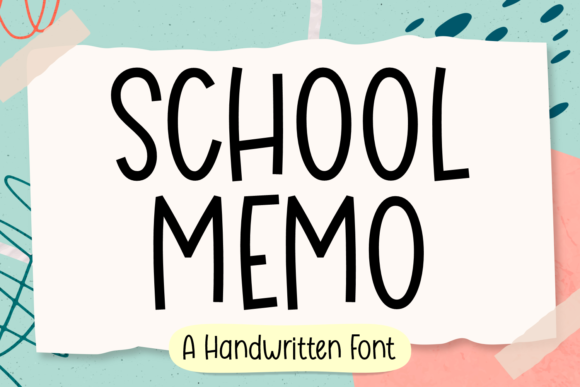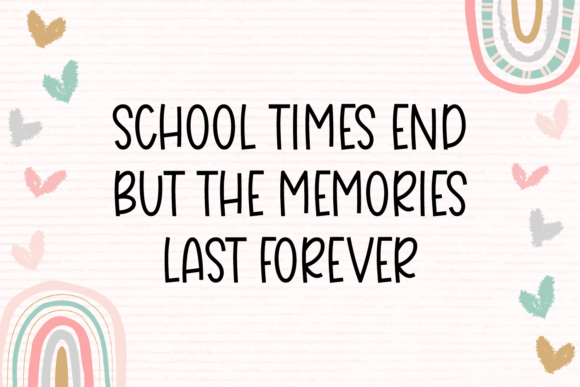
About School Memo Font
Introducing School Memo, a delightful and playful handwritten font designed to bring a touch of cuteness to your creative projects. With its tall and thin character set, School Memo adds a unique charm that is perfect for a variety of applications, especially those aimed at kids. This font is not just a typeface; it’s an opportunity to infuse joy into your designs and make them memorable.
The characteristics of School Memo make it an ideal choice for:
1. **Kids’ Room Designs:** Create a fun and whimsical atmosphere in children’s spaces with this playful font.
2. **Wall Art:** Turn plain walls into vibrant canvases with School Memo, adding a pop of personality to any room.
3. **Frames:** Accentuate photos and artwork with the tall and thin characters of School Memo for a lighthearted touch.
4. **Quotes:** Bring positivity and cheer to your favorite quotes by presenting them in the cute and friendly style of School Memo.
5. **School Projects:** Add an element of fun to educational materials, making learning visually engaging for students.
6. **Posters:** Design eye-catching posters for events or announcements with the playful appeal of School Memo.
7. **Clothing:** Create adorable and stylish clothing designs for kids that reflect their playful nature.
The versatility of School Memo lies in its ability to convey a sense of whimsy and joy, making it suitable for a wide range of creative endeavors. Its tall and thin characters stand out, capturing attention and infusing a sense of childlike innocence into your designs.
Whether you’re working on projects related to education, children’s events, or simply want to inject a dose of playfulness into your designs, School Memo is the perfect choice. Elevate your creativity and make your projects stand out with this cute and captivating handwritten font.